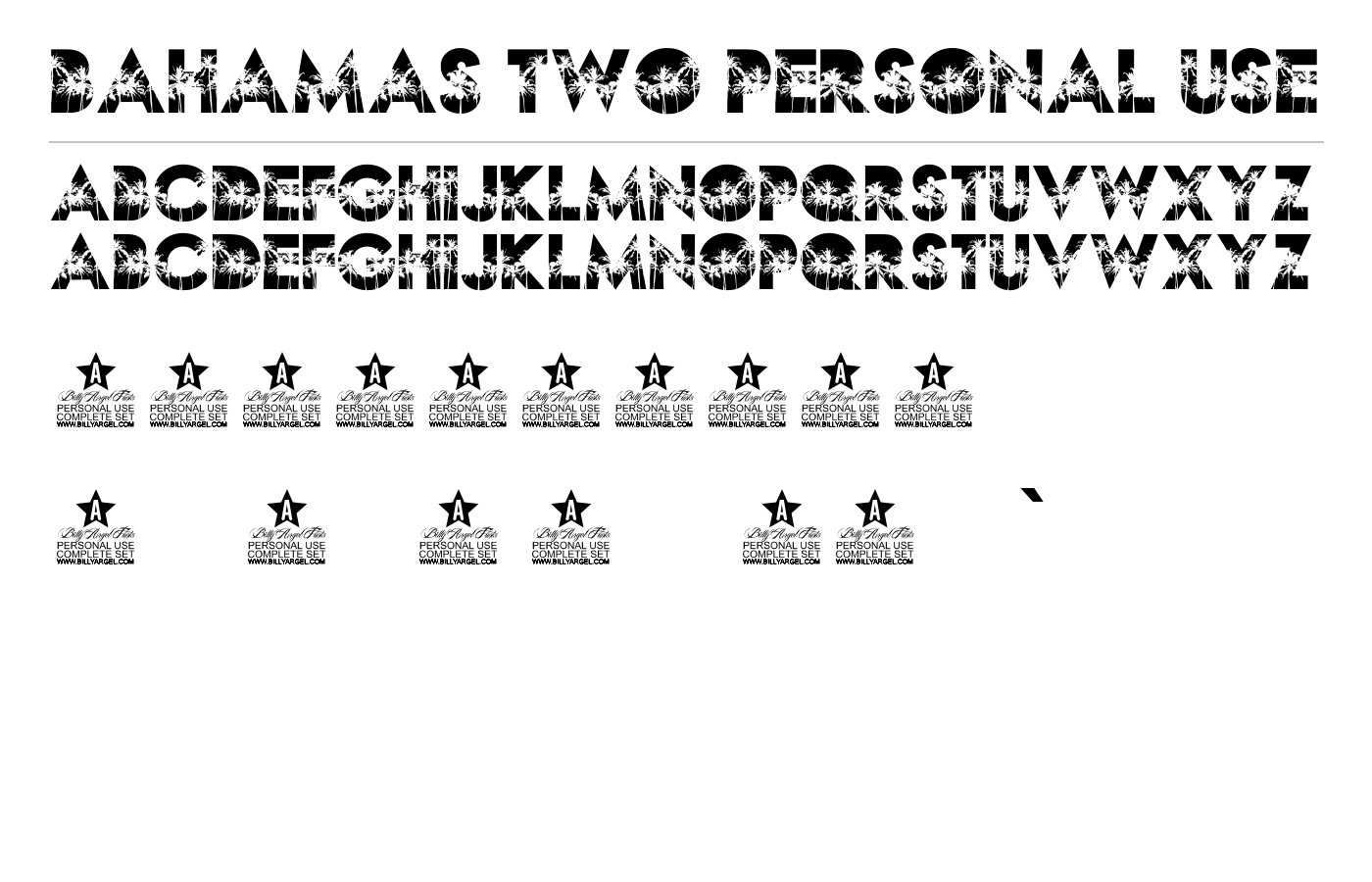
Bahamas Two Personal Use is a bold, all-caps stencil font with a strong, geometric structure and uneven distressed textures that create a dynamic, rugged appearance. Its high contrast between solid and cut-out areas makes it eye-catching, ideal for bold headlines, posters, and branding that needs a modern yet edgy vibe. This font works well in contexts where a striking statement is needed, combining industrial toughness with artistic flair.
BAHAMAS TWO PERSONAL USE Font
About BAHAMAS TWO PERSONAL USE Font
| Font family | BAHAMAS TWO PERSONAL USE Font |